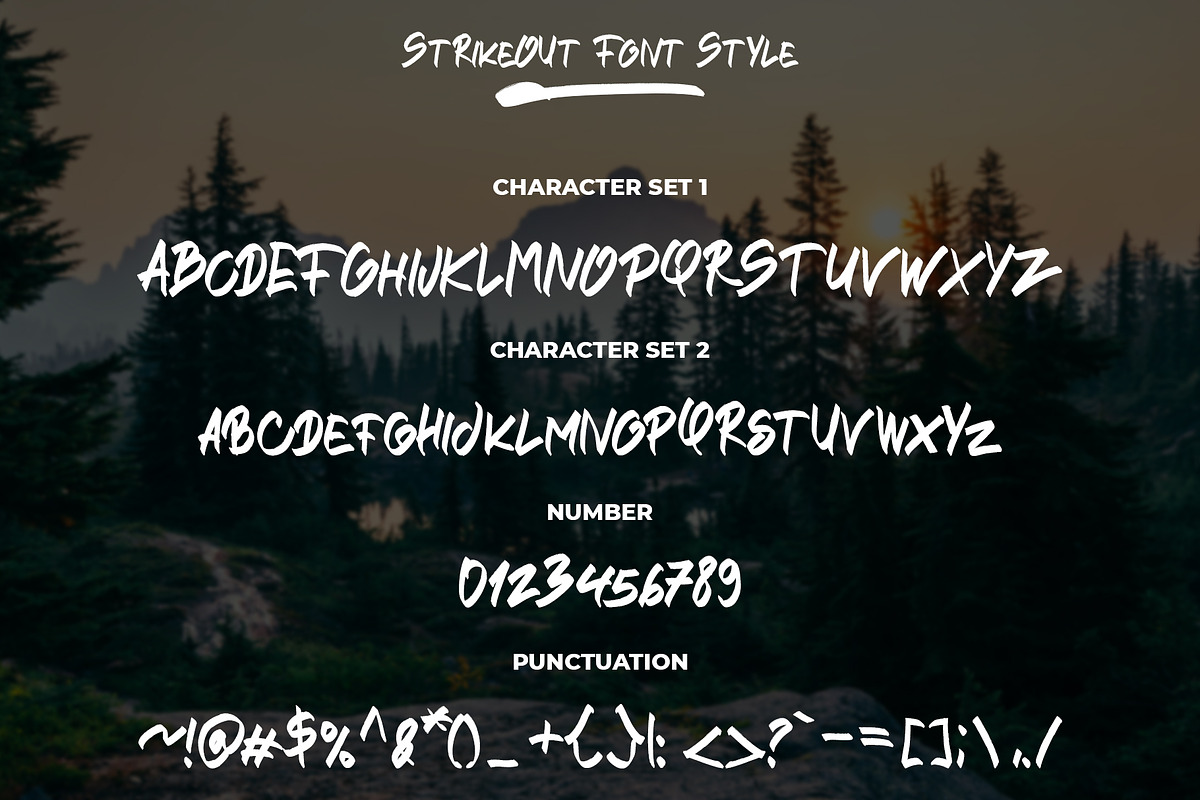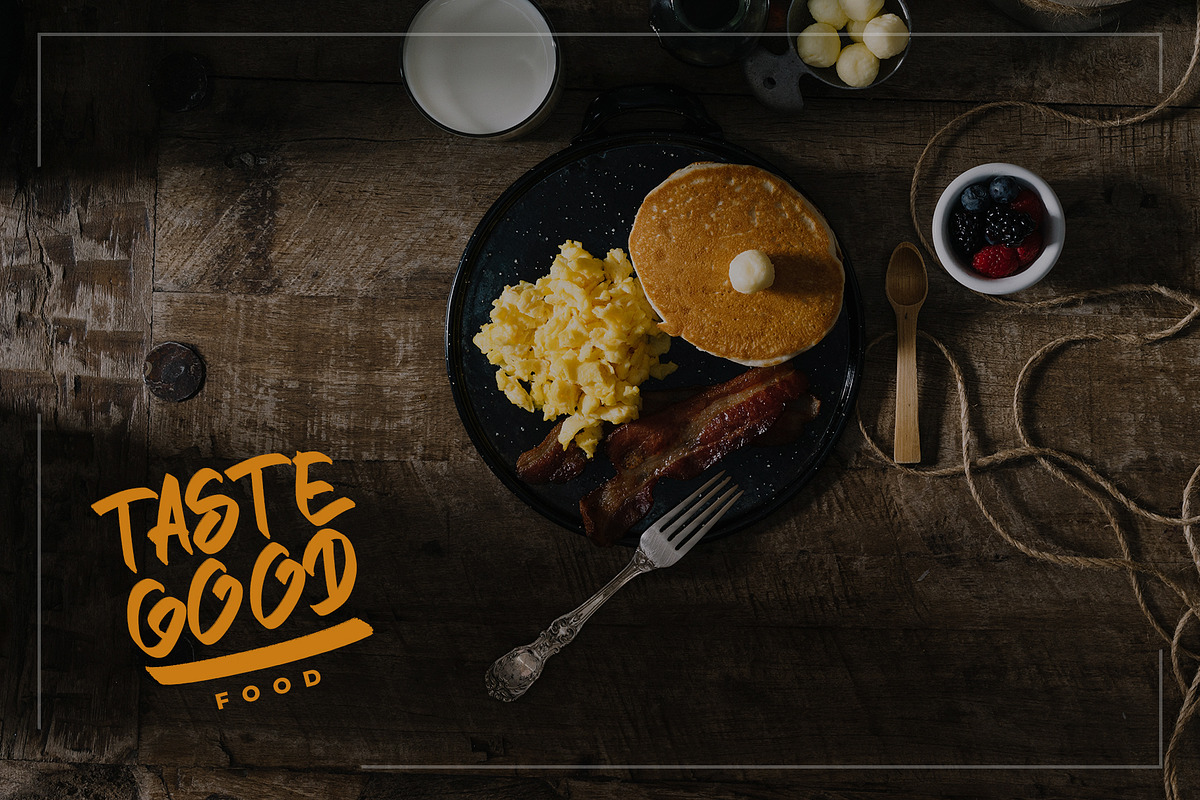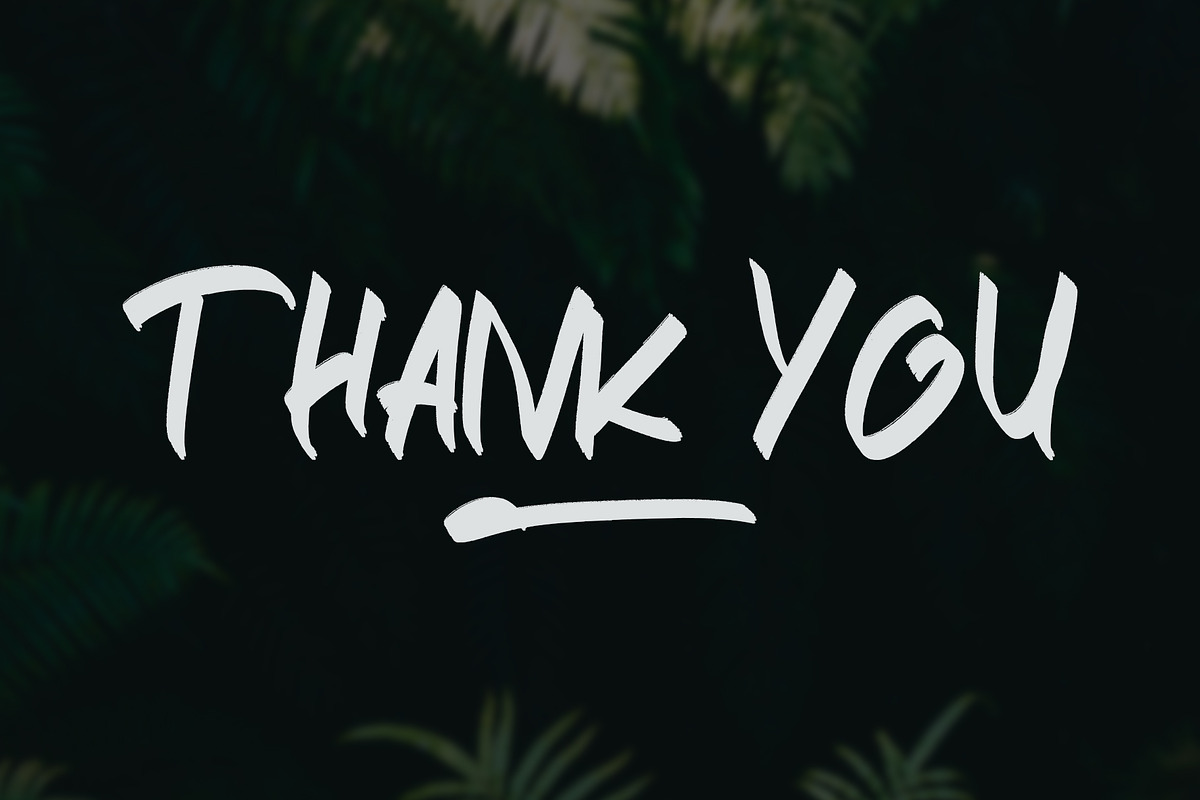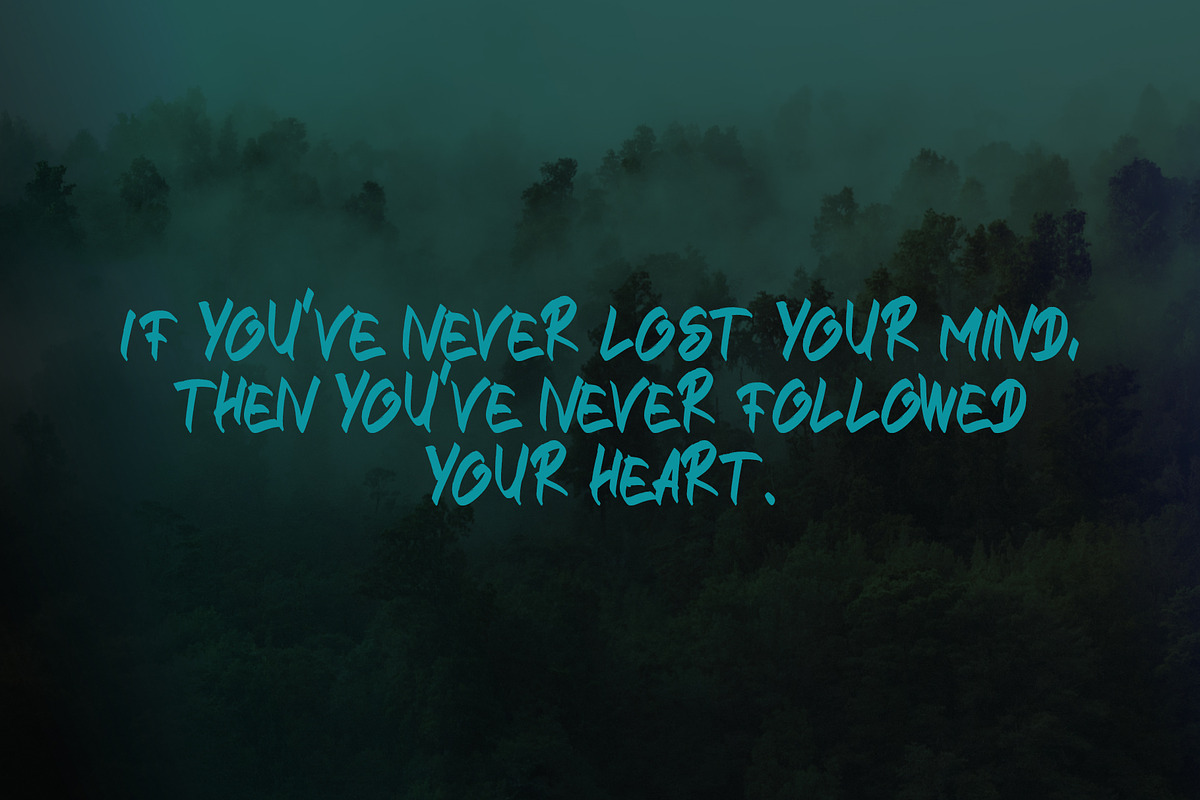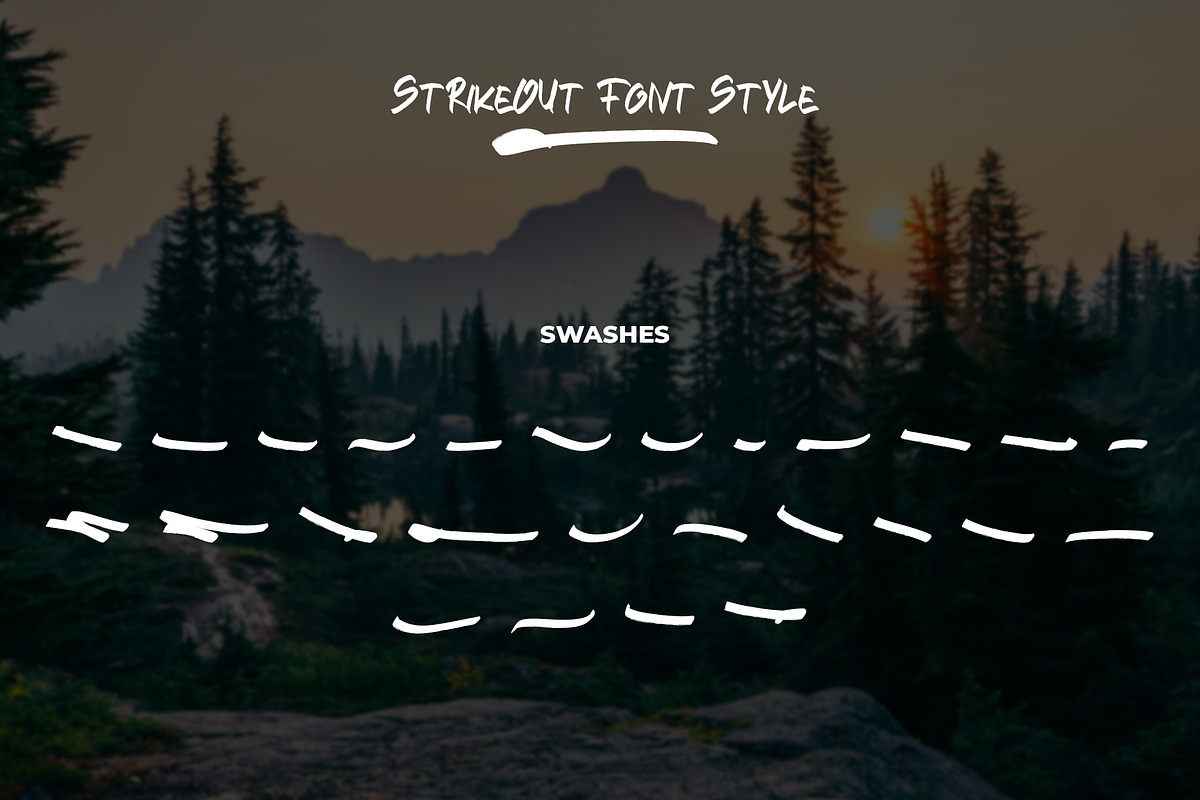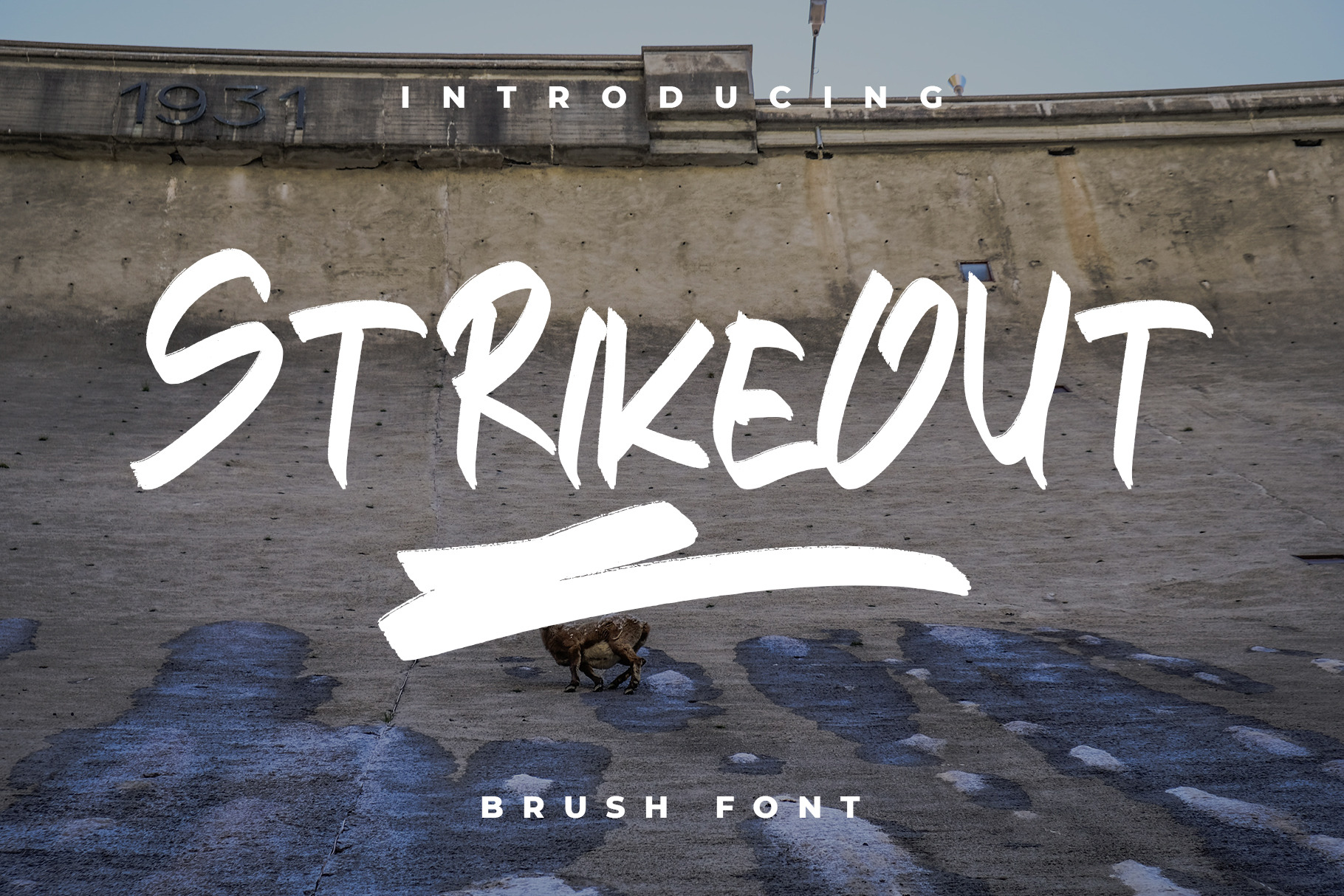
STRIKEOUT || Brush Font
STRIKEOUT is a brush handwriting typeface designed to make your design or your hand-lettering easily look more louder and bold. Perfect & Ideal for Logotype, Quotes, Packaging, Flyer, Poster, Records Cover, Social Media Banner, and Event Merchandise.
STRIKEOUT features comes with All Caps Uppercase & Lowercase, Numeral, Punctuation, Strikeout Swash, Stylistic/Alternate Characters, and also Support Multi Language.